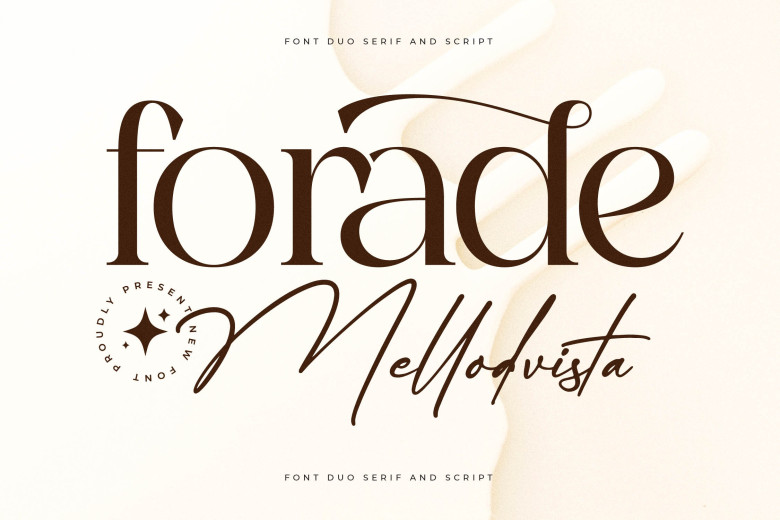
Forade Mellodvista Font
Forade Mellodvista is an exquisite duo typeface which seamlessly combines classic serifs with elegant script elements, creating a striking yet versatile font combination that exudes both elegance and playfulness.
Perfect for creative projects such as invites or branding material with its seamless blend of serifs and scripts in a style which is both flexible and visually appealing, Forade Mellodvista comes PUA encoded so that all its wonderful characters and ligatures are at your fingertips instantly!
Forade Mellodvista Font Duo